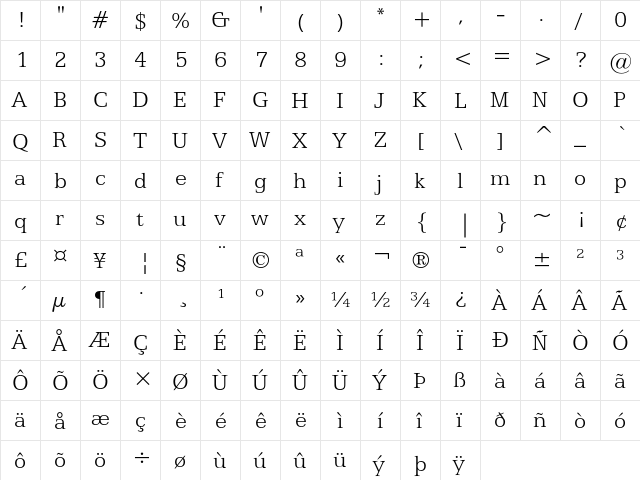
Egyptian 505 Light Font Preview
Egyptian 505 Light
Egyptian 505 Light Font Details
Design Context for Egyptian 505 Typeface
Egyptian 505 features prominent, blocky serifs that give it a confident, grounded presence — equally at home in editorial settings and bold branding work. Its slender proportions lend an understated elegance to any composition.
Works well in editorial design, news publishing, impactful branding, and poster typography.
Pro Tip: Try Egyptian 505 set tight in headlines for a classic editorial feel. Its slab serifs create strong horizontal rhythm that anchors a page layout.